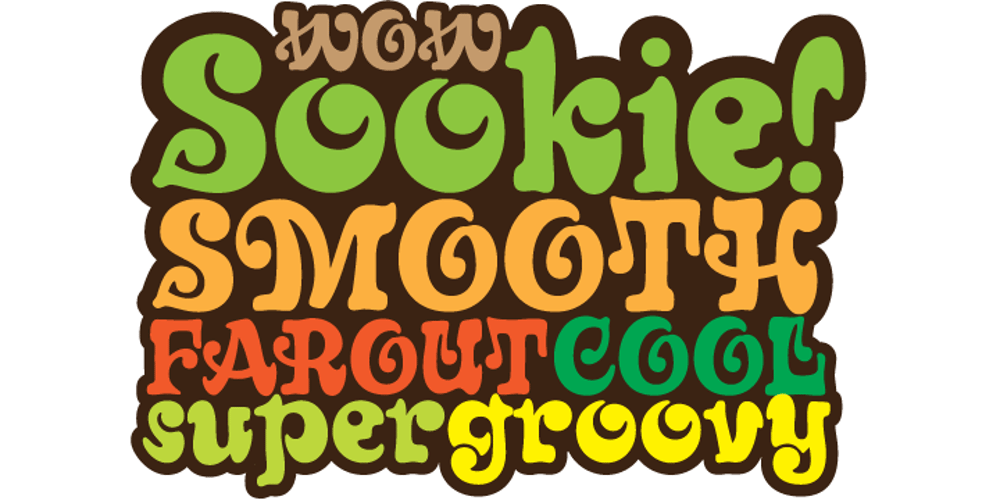
Spadina Font Family was designed by Patrick Griffin, Kevin Allan King and published by Canada Type. Spadina contains 4 styles and family package options. The Canada Type library has acquired a reputation for housing some of the most eye-catching and popular hippie and funk fonts. Kevin King wanted to be part of the hype, so he got the green light to get down and boogie, and Spadina is the result. Based on a 1971 Karlo Wagner design called Fortunata, Spadina is the kind of art nouveau face that mixes influences so crazily it may as well be an acid flashback. When you look closely at the individual letters, there is no telling what mood will pop up in your face. It’s got some blackletter elements, nineteenth century ornamentals, some halloween fear and cheer, big band mystery, big hair garnish, and a lot of musicality. And it all adds up to one melodious hippie chic design that sets the ultimate optimistic mood. To tweak the consciousness-expanding experience even further, a bonus background layer font, called Spadina Bus, is included in the package. Layer away and play with your color palette until your eyes dilate and you are one with the universe, or vice versa. Spadina was named after one of the more historic and colorful streets in downtown Toronto. The word Spadina originates from the Ojibwa word “ishpadina”, which roughly translates to “high hill” or “rising land”.